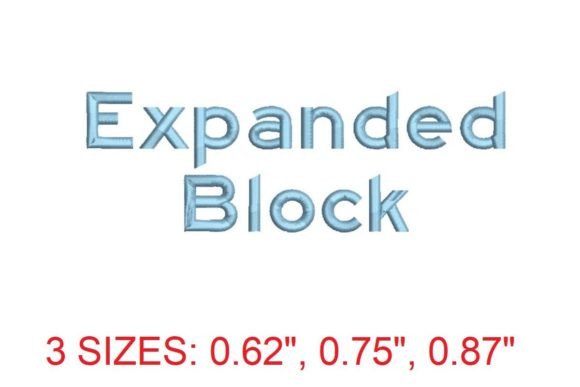
Expanded Block Embroidery Font
The Expanded Block Embroidery Font is a stylish and versatile tool for anyone passionate about embroidery. Whether you're a hobbyist or a professional, this font adds a touch of elegance to your projects. Its bold and refined lettering makes it ideal for a variety of applications, from monogramming to intricate designs.
What Is the Expanded Block Embroidery Font?
The Expanded Block Embroidery Font is specifically designed for use with embroidery machines. It features clean, block-style characters that are both modern and timeless. Each letter is crafted to ensure clarity and precision, making it easy to read and stitch.
Why Choose the Expanded Block Embroidery Font?
One of the main reasons to choose this font is its versatility. It can be used for a wide range of projects, including personalized gifts, custom apparel, and decorative items. The font's elegant design allows it to blend seamlessly with different styles and themes, making it a valuable addition to any embroidery collection.
Additionally, the Expanded Block Embroidery Font offers high-quality stitch work. The bold lettering ensures that each character stands out, creating a visually appealing result. Whether you're working on a simple monogram or a complex pattern, this font delivers consistent and reliable performance.
Where Can You Use the Expanded Block Embroidery Font?
The Expanded Block Embroidery Font is suitable for a variety of personal and professional uses. For instance, it can be used to create custom name tags, embroidered patches, and personalized jewelry. It's also perfect for adding a unique touch to clothing items like t-shirts, tote bags, and denim jackets.
In a professional setting, this font can be used for branding purposes. Businesses can incorporate it into logos, signage, and promotional materials to create a cohesive and stylish image. Educators and hobbyists can also benefit from using this font in their projects, whether they're teaching embroidery classes or creating tutorial content.
Beginner-Friendly Examples and Use Cases
If you're new to embroidery, the Expanded Block Embroidery Font is an excellent starting point. Its clear and simple design makes it easy to follow, even for those with little experience. For example, you could use it to create a personalized initial design for a gift or to add a name to a piece of fabric.
For more advanced users, this font can be combined with other designs to create intricate patterns. It's also great for experimenting with different color schemes and textures, allowing you to explore your creativity without limitations.
Conclusion
The Expanded Block Embroidery Font is a must-have for anyone looking to elevate their embroidery projects. With its bold and elegant design, it offers both style and functionality. Whether you're a beginner or an experienced embroiderer, this font can help you create beautiful and professional-looking designs. Explore its potential and take your embroidery to new heights today.